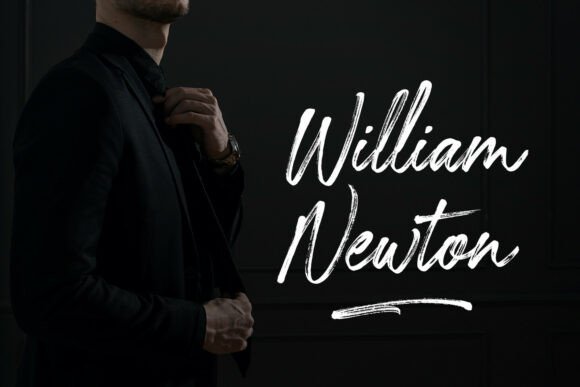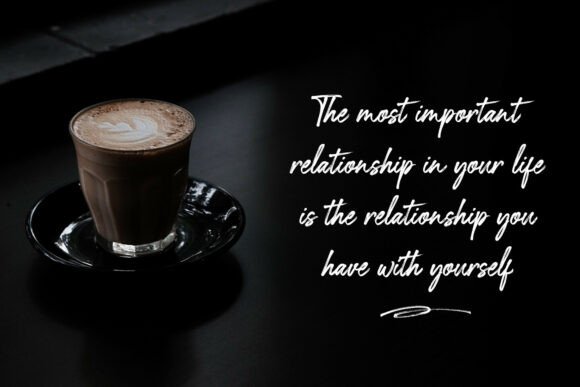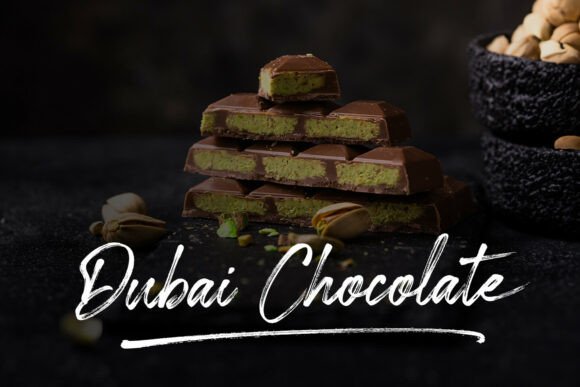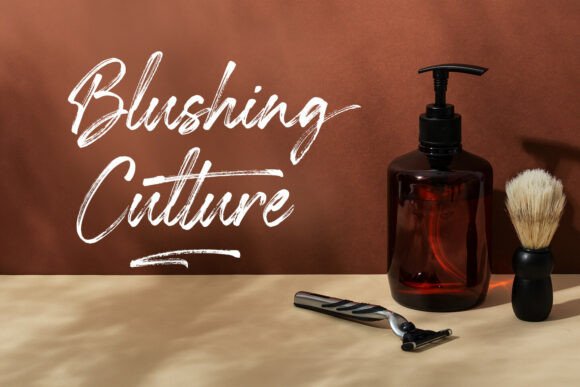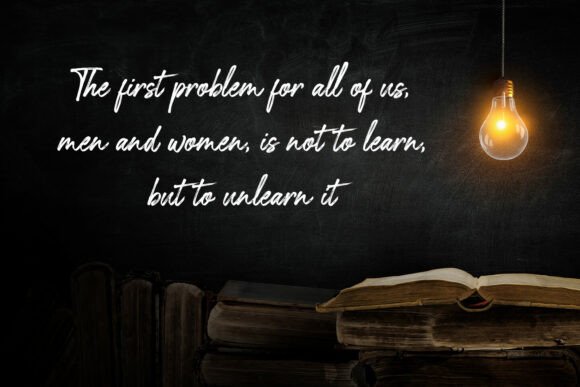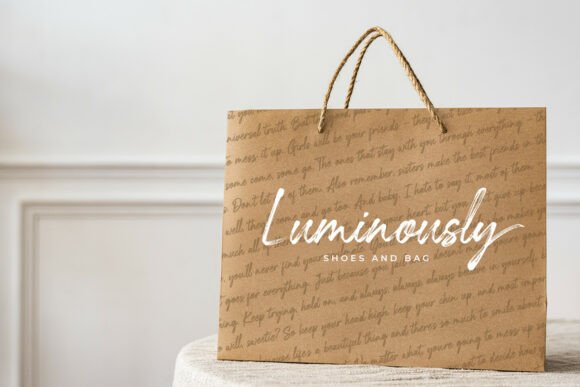
Introducing Crossing Font: The Organic Handbrush Script Font for Authentic Designs
In the world of typography, a font can make or break a design. For creatives seeking to add a touch of warmth and authenticity to their work, the Crossing font is an excellent choice. This organic handbrush script font is crafted with a real brush-pen, giving it a unique, handwritten rhythm that’s perfect for designs that crave personality and charm.
The Characteristics of Crossing Font
So, what sets Crossing apart from other fonts? Here are a few key characteristics that make this font stand out:
- Organic and Handwritten: Crossing is created with a real brush-pen, giving it a genuine, handwritten feel that’s perfect for designs that need a personal touch.
- Smooth Curves and Dynamic Strokes: The font features smooth curves and dynamic strokes that add a touch of elegance and sophistication to any design.
- Raw Brush Texture: The raw brush texture of Crossing gives it a unique, organic feel that’s perfect for designs that need a bit of grit and authenticity.
- Touch of Imperfection: The font’s imperfections add to its charm, giving it a human feel that’s perfect for designs that need to stand out.
Uses for Crossing Font
Crossing is a versatile font that can be used in a variety of design projects, including:
- Logo Design: The bold, yet graceful script style of Crossing makes it perfect for logos that need to make a statement.
- Packaging Design: The font’s organic feel and raw brush texture make it a great choice for packaging designs that need to stand out on store shelves.
- Wedding Invitations: The elegant, sophisticated feel of Crossing makes it perfect for wedding invitations and other formal events.
- Social Media Graphics: The font’s unique, handwritten rhythm makes it a great choice for social media graphics that need to grab attention.
Why Choose Crossing Font?
So, why choose Crossing font for your design projects? Here are a few reasons:
- Authenticity: Crossing’s organic, handwritten feel gives designs a level of authenticity that’s hard to replicate with other fonts.
- Personality: The font’s unique characteristics and imperfections add a touch of personality to designs, making them more engaging and memorable.
- Versatility: Crossing can be used in a variety of design projects, from logos and packaging to wedding invitations and social media graphics.
- Ease of Use: The font is easy to use and pairs well with a variety of other fonts, making it a great addition to any designer’s toolkit.
Tips for Using Crossing Font
Here are a few tips for getting the most out of Crossing font:
- Pair with Other Fonts: Crossing pairs well with a variety of other fonts, so don’t be afraid to experiment and find the perfect combination for your design.
- Use for Headlines: The font’s bold, yet elegant feel makes it perfect for headlines and titles.
- Add Texture: The raw brush texture of Crossing is a key part of its charm, so consider adding texture to your design to really make it pop.
- Experiment with Colors: The font’s organic feel makes it a great choice for designs with bold, bright colors.
In conclusion, Crossing font is a unique and versatile font that’s perfect for designers and crafters seeking to add a touch of authenticity and personality to their work. With its organic, handwritten feel and raw brush texture, Crossing is a great choice for a variety of design projects, from logos and packaging to wedding invitations and social media graphics. So why not give Crossing a try and see the difference it can make in your designs?